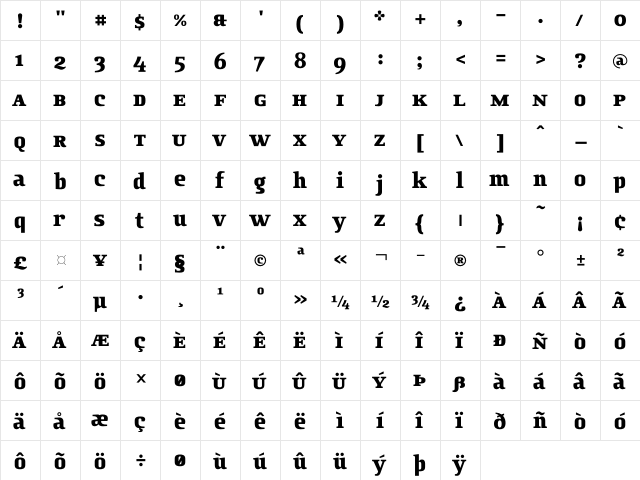
AnubisPro Regular
| Foundry | Dino dos Santos _DSType |
| Designer | Dino dos Santos |
Design Context for AnubisPro Typeface
AnubisPro is a composed and adaptable typeface that performs quietly and consistently across a wide range of design contexts.